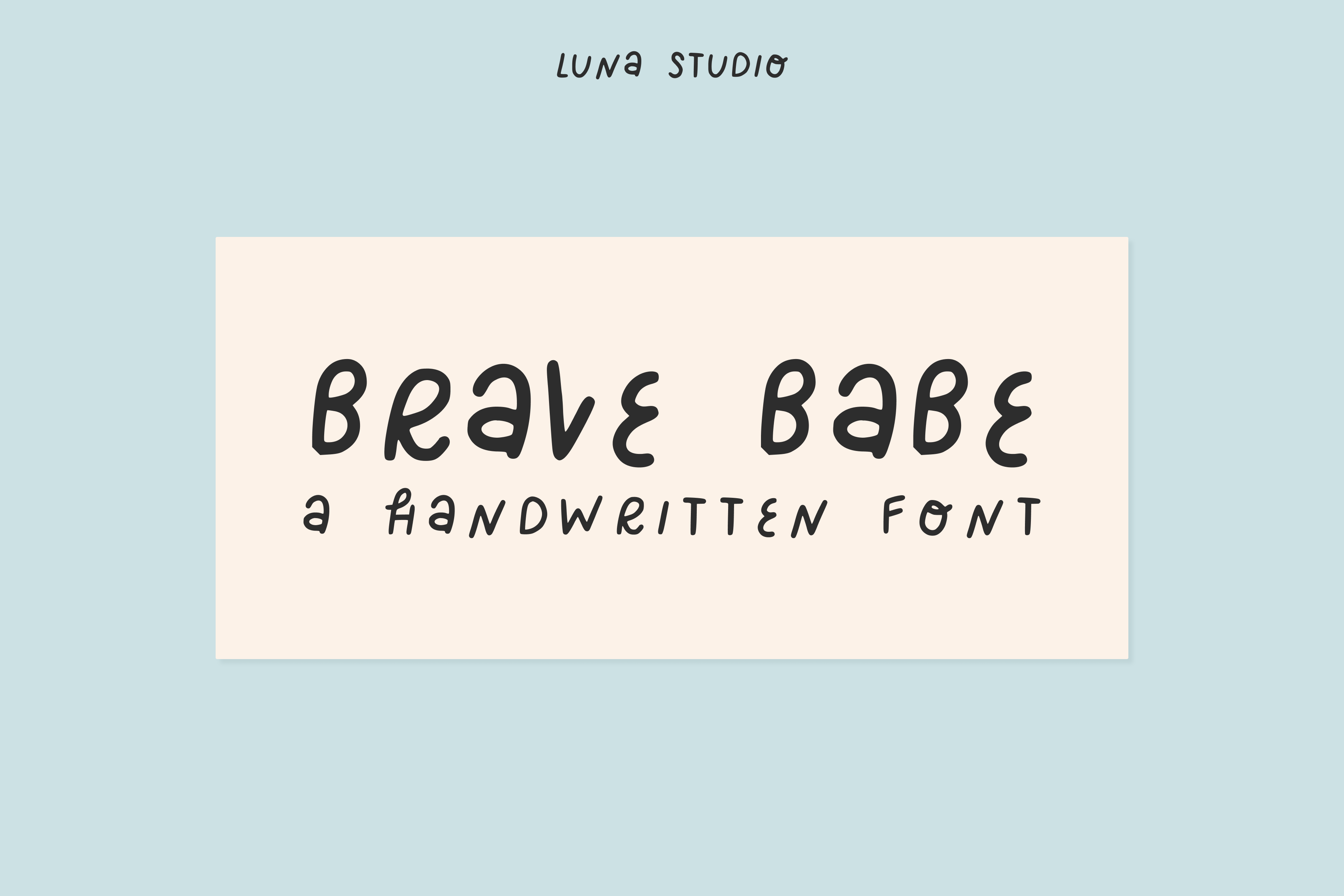
Brave Babe | Handwritten Cute Font
I wanted to show you my fun & cute font! It's my second font created and I'm so happy with it!
It's called Brave Babe and the letters have been carefully crafted in Procreate. It works wonderfully with illustrations!